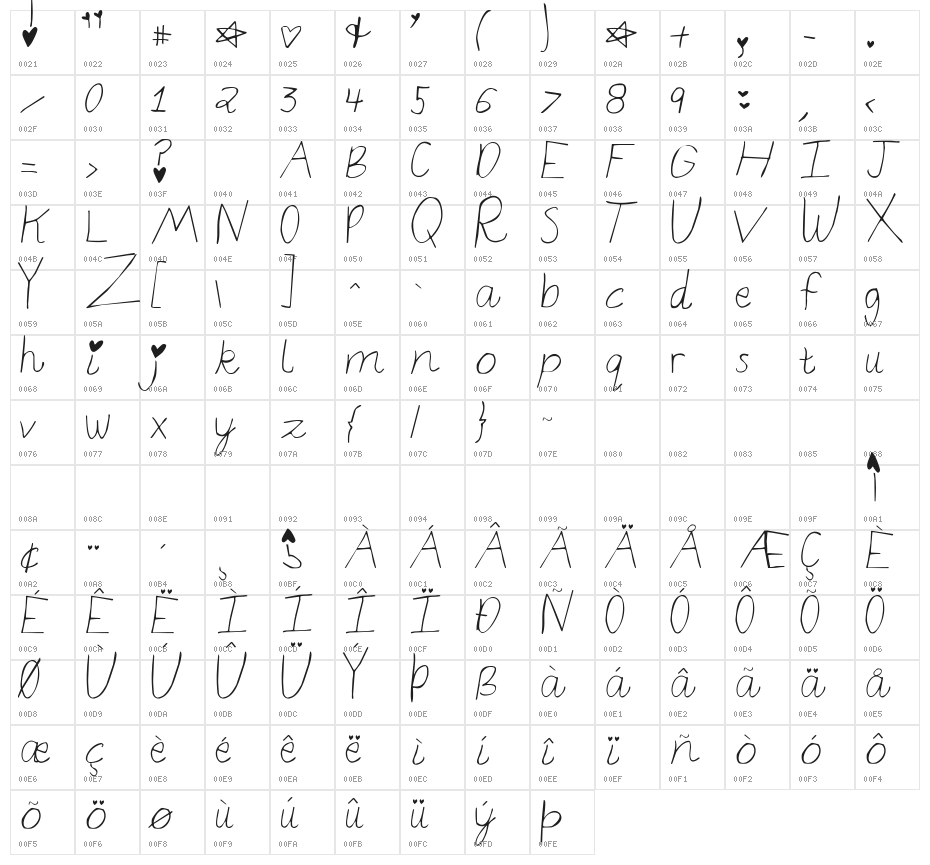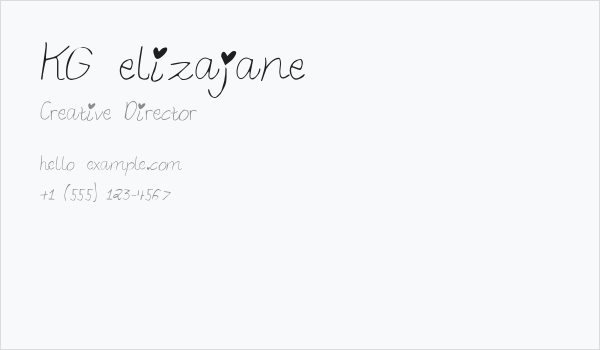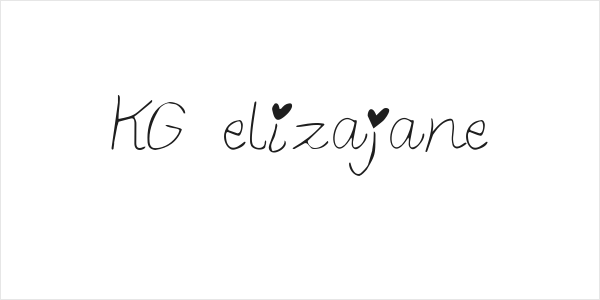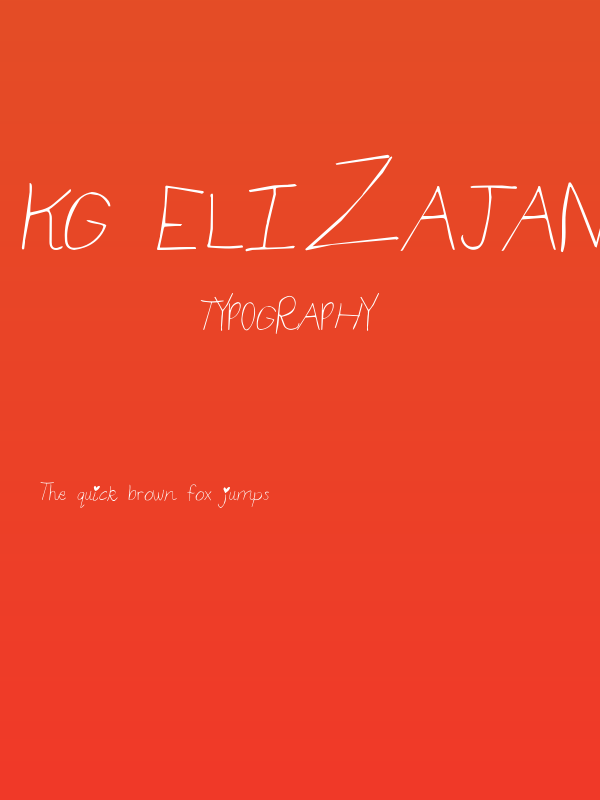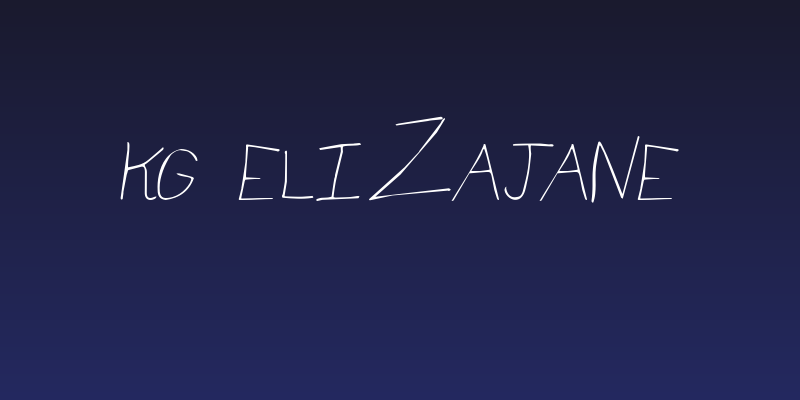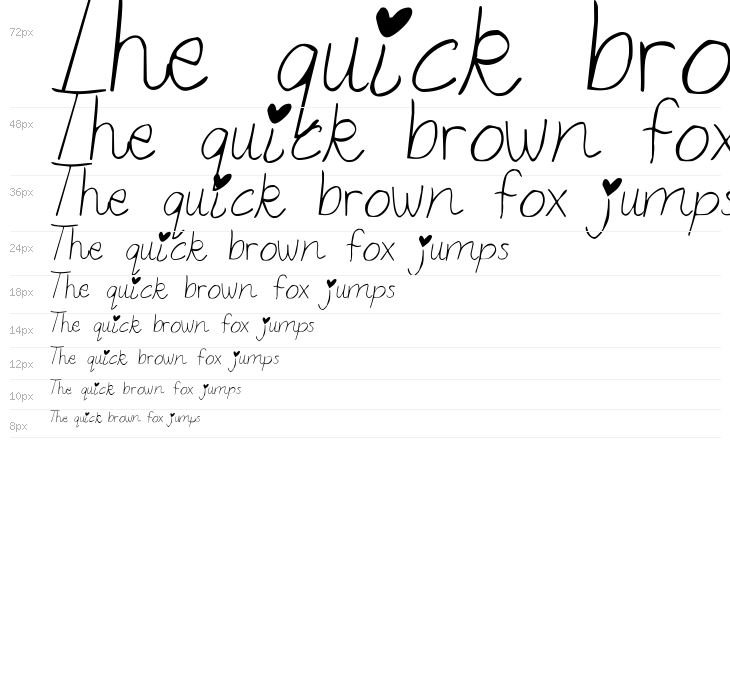
KG elizajane Font
KG elizajane Description
This font exudes a playful and whimsical charm, characterized by its handwritten style that mimics a casual, personal touch. The letters are slightly irregular, adding to the authentic handwritten feel. Uppercase letters are tall and slender, while lowercase letters have a more rounded and flowing appearance. The inclusion of heart shapes as dots over the 'i' and 'j' adds a unique and endearing element. Numbers are clear and easy to read, maintaining the same playful style. Special characters, including stars and hearts, enhance the font's decorative appeal, making it ideal for creative and informal projects.
| Proposed Projects | Ideal for greeting cards, personal invitations, children's book covers, and playful branding projects. |